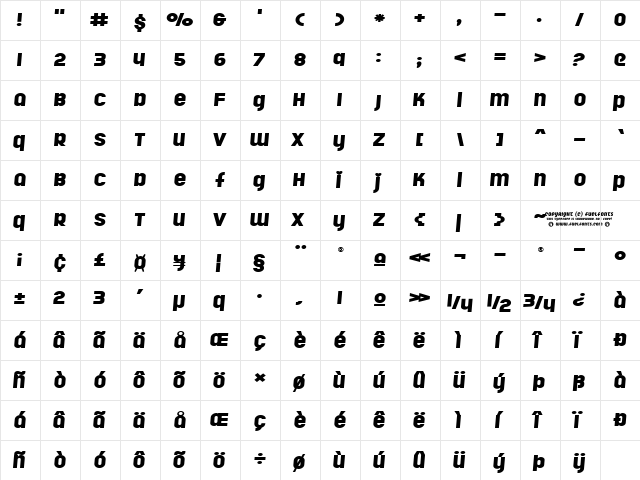
Rollergirls
Design Context for Rollergirls Typeface
Rollergirls takes a measured approach to typography — its balanced proportions and neutral character make it a reliable workhorse for both digital and print work.